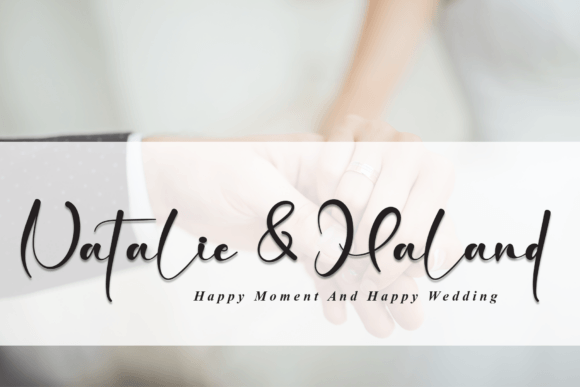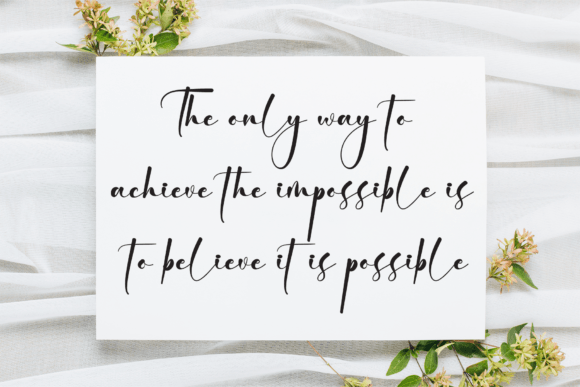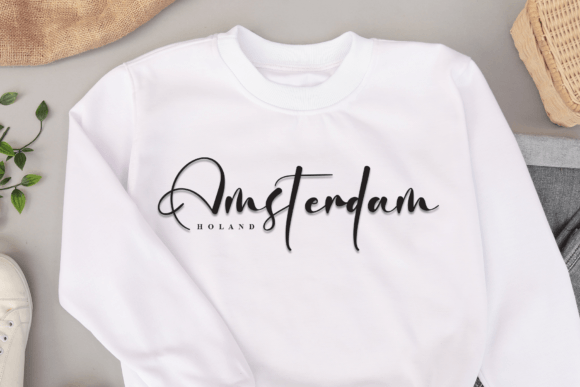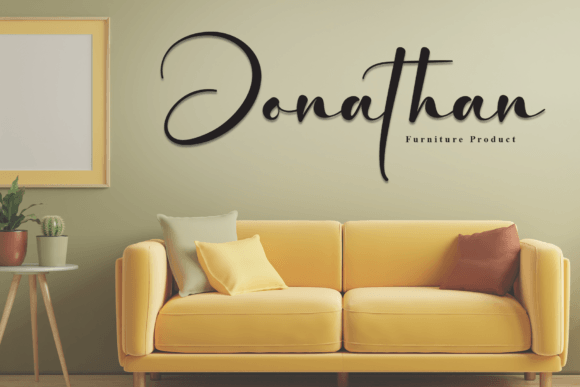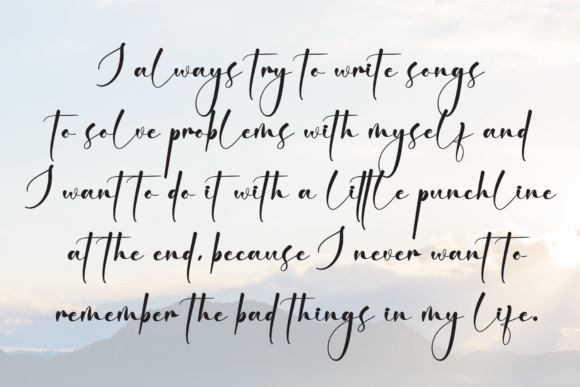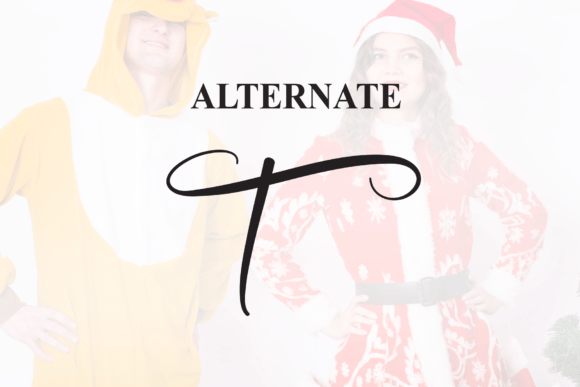
Introducing Costume Christmas Font: Elevate Your Designs with Elegance
Are you looking for a font that exudes style and sophistication for your designs? Look no further than the Costume Christmas Font. This stunning script font is perfect for adding a touch of elegance to various design projects, from wedding invitations to business cards. In this article, we’ll dive into the features and benefits of the Costume Christmas Font and explore how it can elevate your designs.
What is Costume Christmas Font?
Costume Christmas is a stylish and incredibly elegant script font that is designed to give your designs a handwritten touch. Its flowing curves and sophisticated lines make it perfect for a variety of design applications, including wedding invitations, thank you cards, quotes, greeting cards, logos, and business cards.
Key Features of Costume Christmas Font
- Elegant Script Style: The Costume Christmas Font features an elegant script style that is perfect for adding a touch of sophistication to your designs.
- Handwritten Touch: The font’s handwritten touch makes it perfect for designs that require a personal and intimate feel.
- Versatile: The Costume Christmas Font is versatile and can be used for a variety of design applications, from wedding invitations to business cards.
- Easy to Read: Despite its elegant style, the font is easy to read, making it perfect for designs that require a clear and concise message.
Benefits of Using Costume Christmas Font
Using the Costume Christmas Font in your designs can have numerous benefits. Here are a few:
- Adds Elegance: The font’s elegant style adds a touch of sophistication to your designs, making them perfect for special occasions like weddings and holidays.
- Creates a Personal Touch: The font’s handwritten touch creates a personal and intimate feel, making your designs more relatable and engaging.
- Versatile: The font’s versatility makes it perfect for a variety of design applications, saving you time and effort in finding the right font for your project.
- Enhances Readability: The font’s clear and concise style enhances readability, making it perfect for designs that require a clear message.
Design Applications for Costume Christmas Font
The Costume Christmas Font is perfect for a variety of design applications, including:
- Wedding Invitations: The font’s elegant style makes it perfect for wedding invitations, adding a touch of sophistication and romance to your designs.
- Thank You Cards: The font’s handwritten touch makes it perfect for thank you cards, creating a personal and intimate feel.
- Quotes: The font’s elegant style makes it perfect for quotes, adding a touch of sophistication and elegance to your designs.
- Greeting Cards: The font’s versatile style makes it perfect for greeting cards, from Christmas cards to birthday cards.
- Logos: The font’s elegant style makes it perfect for logos, adding a touch of sophistication and professionalism to your brand.
- Business Cards: The font’s clear and concise style makes it perfect for business cards, enhancing readability and creating a professional image.
Tips for Using Costume Christmas Font
Here are a few tips for using the Costume Christmas Font in your designs:
- Use it Sparingly: Use the font sparingly to add emphasis and create a touch of elegance.
- Pair it with Other Fonts: Pair the font with other fonts to create a unique and visually appealing design.
- Pay Attention to Readability: Pay attention to readability and ensure that the font is clear and concise.
In conclusion, the Costume Christmas Font is a stylish and elegant script font that is perfect for adding a touch of sophistication to your designs. Its versatile style makes it perfect for a variety of design applications, from wedding invitations to business cards. With its elegant style, handwritten touch, and clear readability, the Costume Christmas Font is a must-have for designers and crafters looking to elevate their designs.